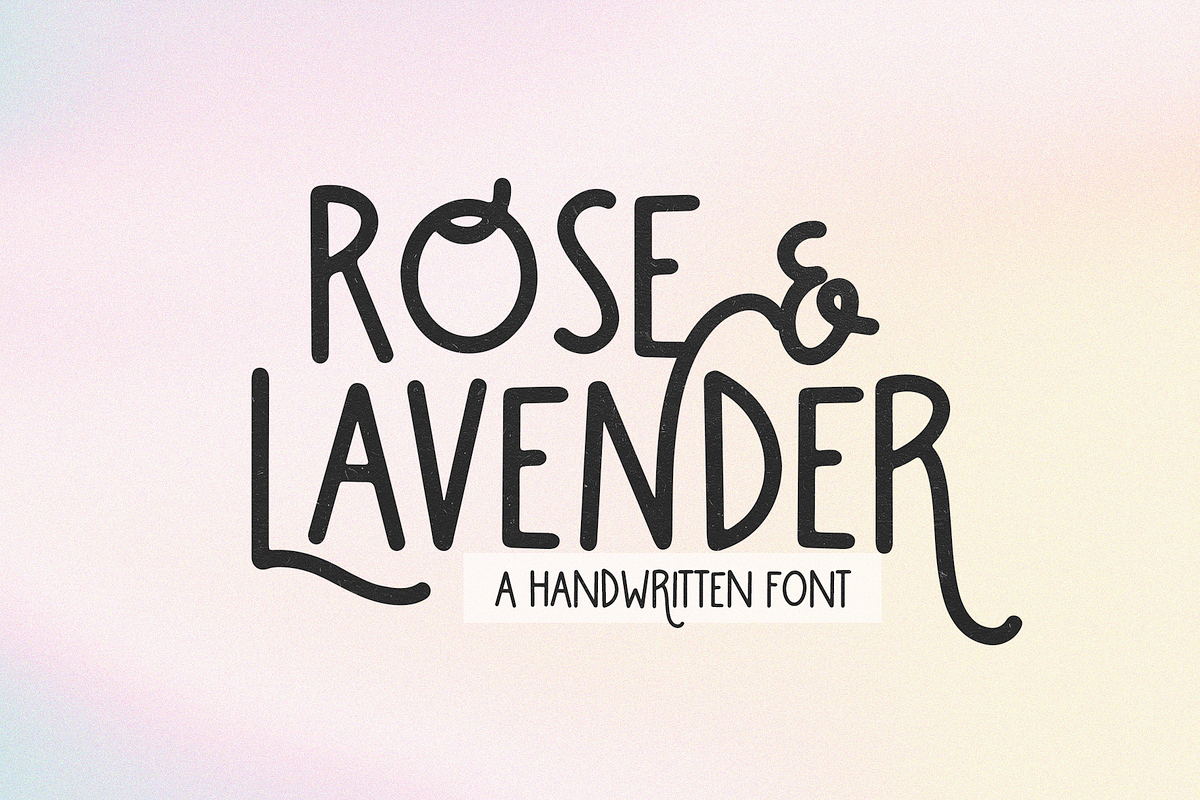
Rose & Lavender | Handwritten Font Free Download
Rose & Lavender | Handwritten Font Free Download is a soft, elegant script font that exudes warmth, romance, and a handmade touch. Inspired by floral beauty and gentle moments, this typeface is ideal for wedding invitations, personal branding, social media posts, packaging, and any design that needs a touch of grace and personality.
With its flowing lines, subtle curves, and natural rhythm, Rose & Lavender brings a heartfelt charm to every letter. It works beautifully for feminine branding, lifestyle blogs, stationery, or anything that calls for an authentic handwritten look.
Let your designs bloom with the delicate beauty of Rose & Lavender.